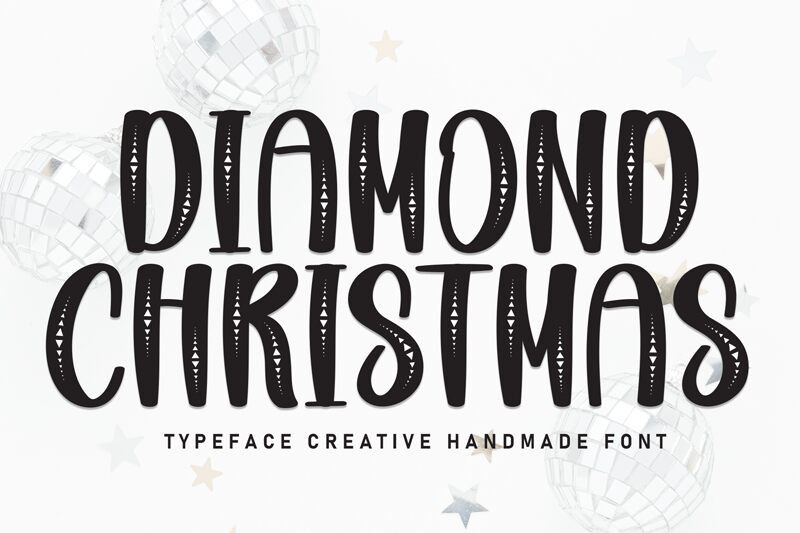
Diamond Christmas font by Scratchones is a playful decorative font that is full of festive energy. Its unique and handcrafted feel makes it an eye-catching choice for holiday themes, designed to set a lively mood. The design is both contemporary and suitable for modern applications, making it a versatile choice for various projects. A free font for personal use, it’s perfect for a wide range of uses.
Utilize Diamond Christmas to create greeting cards, party invitations, product packaging, movie titles, logo designs, or even houseware decorations. Its applications don’t stop there, as it can also be a good fit for books, social media posts, and more holiday-inspired projects.